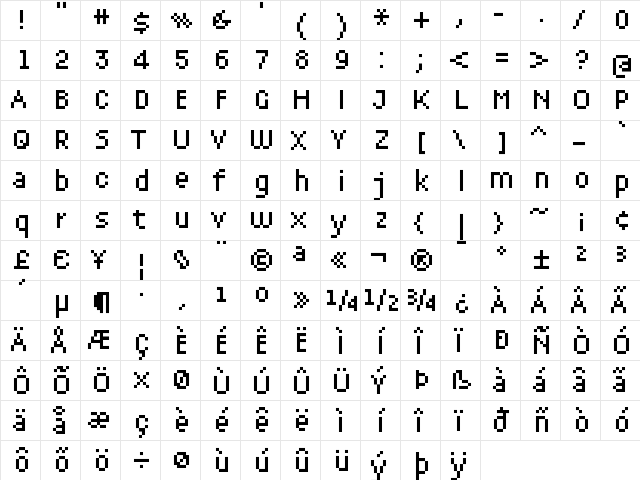
CPCompanyFlash Small
Design Context for CPCompanyFlash Typeface
CPCompanyFlash offers clean, dependable letterforms without strong stylistic allegiance, making it a practical choice for designers who need flexibility.